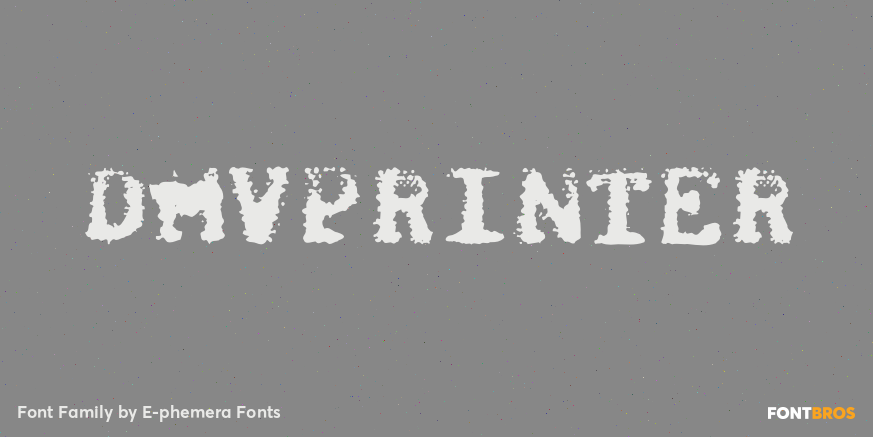
HomeFont BrosDistressedDMVPrinter DistressedSpecial Effect DMVPrinter FacebookXPinterestWhatsApp 1 of 1 About DMVPrinter This font is a replica of the printer used by the California Department of Motor Vehicles, and other state organizations. It was developed so I could make a more authentic prop automobile registration.  DOWNLOAD ON FONT BROSThis font is sold and delivered by Font Bros. Font Canyon may earn a commission if you buy through this link. People also explored Fentia Font Agalynd Font Fathinya Font Brelind Font Dusky Pines Font Questario Font Anastacia Font Bourjois Font Mr. Rabbit Font 686 0 TagsDMVPrinter Font Previous articleDainty LadyNext articleBoketto LEAVE A REPLY Cancel reply Comment: Please enter your comment! Name:* Please enter your name here Email:* You have entered an incorrect email address! Please enter your email address here Website: Save my name, email, and website in this browser for the next time I comment. Personal Use Free Anggraini Personal Use Free Read more about this font Theobald Personal Use Free Read more about this font Aliqa Personal Use Free Read more about this font Beat My Guest Personal Use Free Read more about this font BLOG Fonts That Capture the Spirit of New York City New York City is more than just a place—it’s an experience, a rhythm, a visual language... To increase your work productivity, choose the most readable fonts. Best Fonts for T-Shirt Design – Top 2025 Picks Top 10 Handwritten Fonts That Elevate Your Designs